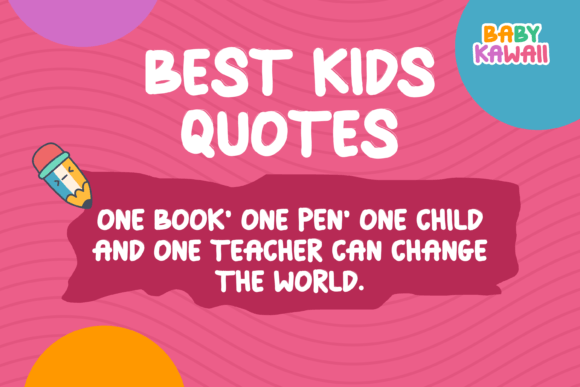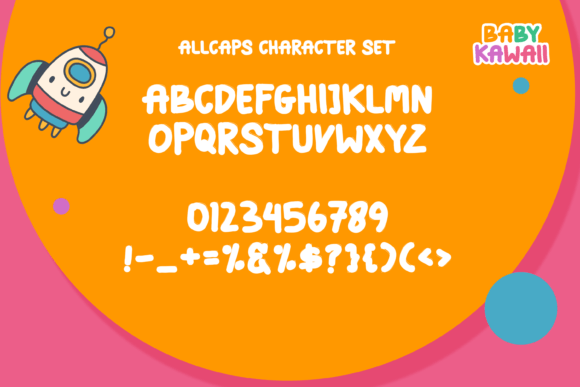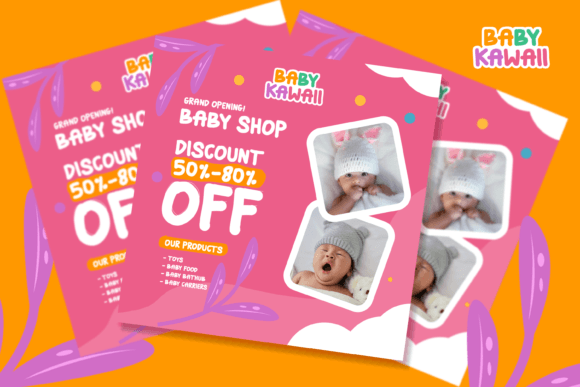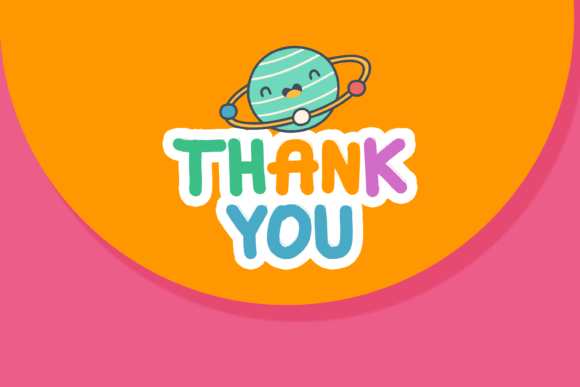
Unleashing Joy with Typography: The Baby Kawaii Font
Have you ever stared at a blank page, trying to come up with the perfect font to match your creative vision? You know that moment when everything falls into place, and your design suddenly comes alive? That’s exactly what happened when designers discovered the Baby Kawaii – Playful Display Font.
This delightful typeface radiates sheer delight and whimsy in every letterform, making it the perfect choice for creative projects that require a joyful and playful touch. Whether you’re designing a children’s book, a greeting card, or a social media post, the Baby Kawaii Font is sure to bring a smile to your audience’s faces.
As a designer, you know the value of a well-chosen font in elevating your work. The Baby Kawaii Font is no exception, offering a unique blend of cuteness and fun that’s sure to make your designs stand out from the crowd.
Baby Kawaii Font Key Features
- Unique Characteristics: Cutesy and playful design, ideal for children’s products, food packaging, and other applications requiring a sweet and endearing font style
Baby Kawaii Font Review
Overall, I found the Baby Kawaii Font to be a cute and playful addition to any design project. Here’s what works well:
- ✨ Its adorable and childlike aesthetic is perfect for creating a whimsical or nursery-themed design.
- ✨ The font is highly customizable, allowing you to adjust the size, color, and spacing to fit your design needs.
- ✨ It’s a great choice for designers looking to add a touch of sweetness and innocence to their projects.
- ⚠️ The font may not be suitable for more serious or professional designs, as its playful nature may detract from the tone you’re trying to convey.
- ⚠️ Some characters may not render properly in certain situations, which can lead to inconsistent typography.
- ⚠️ The font may not be as versatile as other fonts, limiting its use in a wide range of design applications.
In conclusion, the Baby Kawaii Font is a fun and quirky addition to any designer’s toolkit. While it may not be the best choice for every project, it’s a great option for those looking to add a touch of whimsy and playfulness to their designs.
Tips for Getting the Most Out of Baby Kawaii Font
Use the Baby Kawaii Font for creating playful and whimsical designs, such as:
- Children’s party invitations
- Infant and toddler product labels
Remember to pair the Baby Kawaii Font with other playful and colorful elements to create a cohesive and eye-catching design.